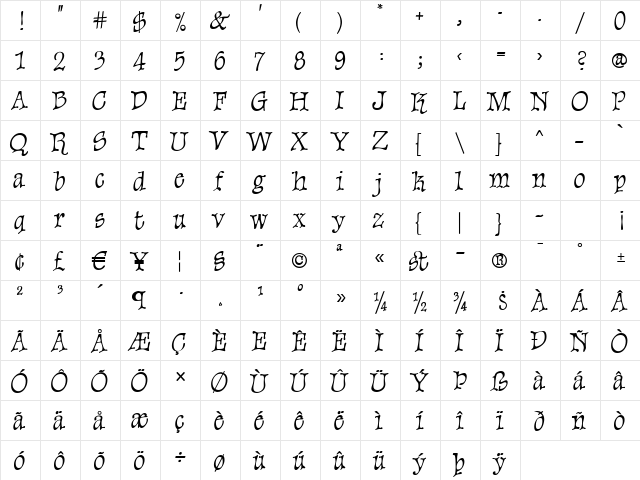
Sparrow Regular
Design Context for Sparrow Typeface
Sparrow takes a measured approach to typography — its balanced proportions and neutral character make it a reliable workhorse for both digital and print work.